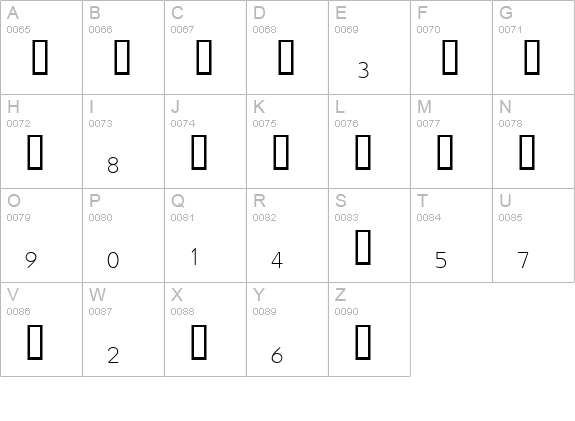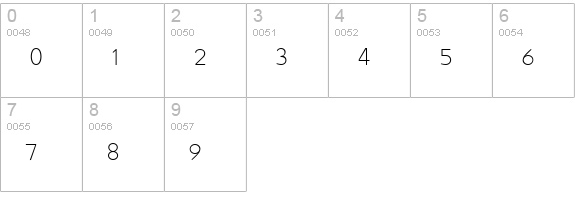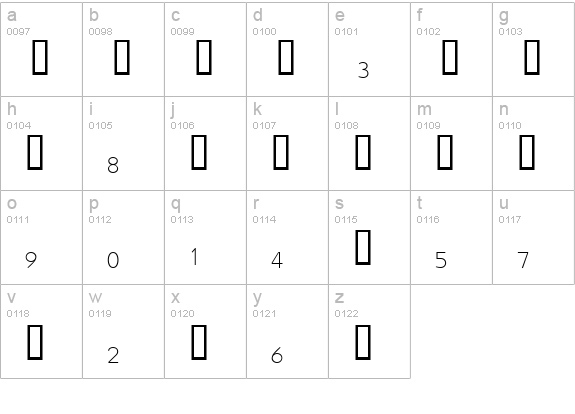
FractionsHelper Font Details
FractionsHelper font is a versatile and elegant typeface designed to make working with fractions a breeze. With its clear and readable design, FractionsHelper is the perfect choice for any project that requires precise fractions. This font is meticulously crafted to ensure that fractions are displayed accurately and beautifully, making your work stand out with professional polish. But the best part? FractionsHelper font is completely free to download at FontsMarket.com! That's right, you can enhance your design projects with this exceptional font without any cost. Whether you're working on a publication, website, or any other creative endeavor, FractionsHelper font will become your go-to tool for all your fraction needs. Download it now and elevate your design game with this incredible and freely available font.